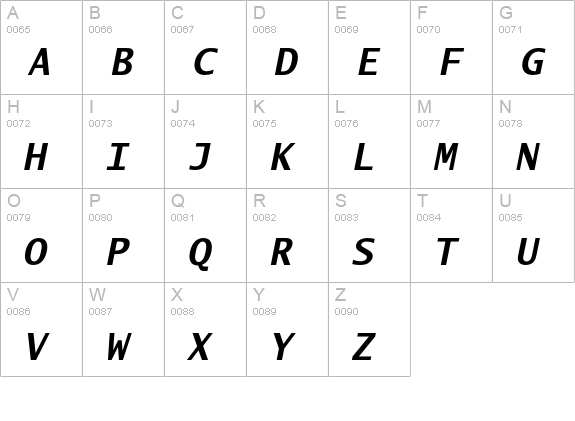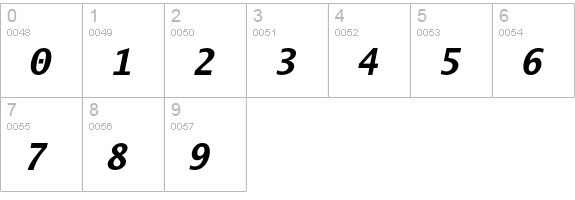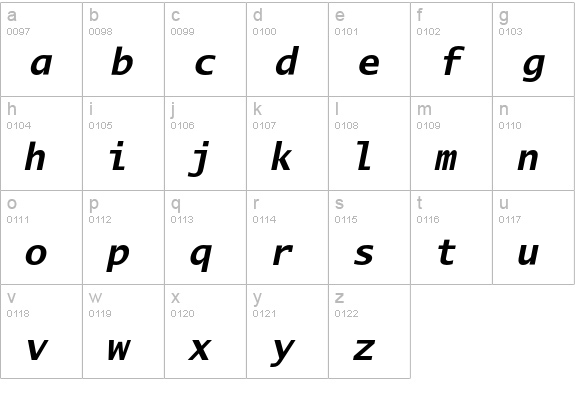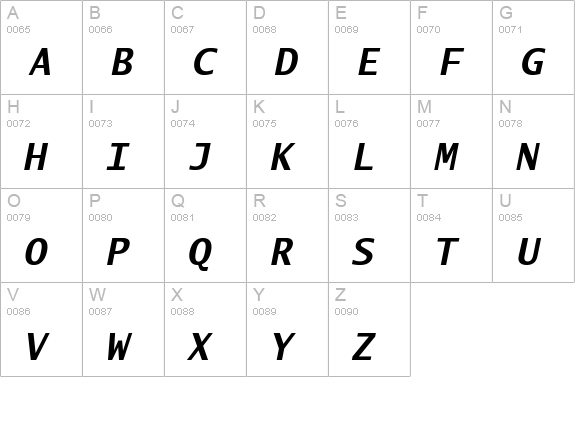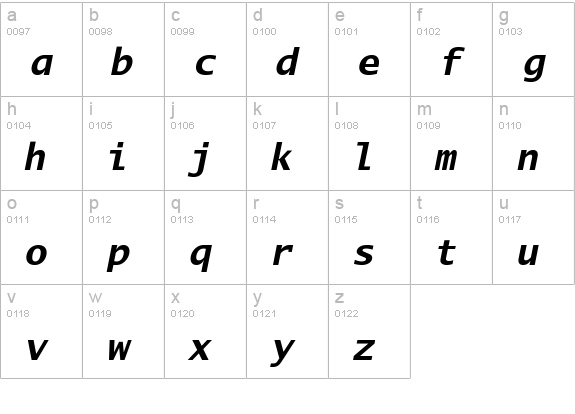
LucidaMonoEF-BoldItalic Font Details
LucidaMonoEF-BoldItalic is a versatile and modern font that exudes a sense of sophistication and style. With its bold and italicized design, this typeface adds a touch of elegance to any project or design. The sleek lines and sharp angles of LucidaMonoEF-BoldItalic create a dynamic and eye-catching appearance that is perfect for a wide range of uses. What sets LucidaMonoEF-BoldItalic apart is not only its visual appeal, but also the fact that it is available for free download. You can easily access this font at FontsMarket.com and incorporate it into your creative projects without any cost. Whether you are designing a website, creating marketing materials, or working on a branding project, LucidaMonoEF-BoldItalic is a fantastic choice that will make your text stand out with its bold and italicized look. Don't miss out on the opportunity to enhance your designs with the striking and modern aesthetic of LucidaMonoEF-BoldItalic. Download this font for free today at FontsMarket.com and take your projects to the next level.